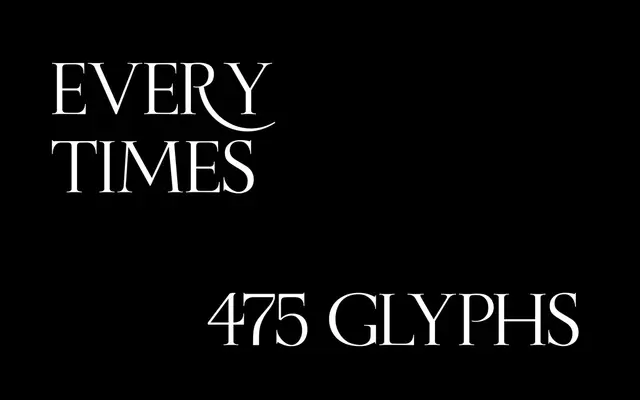
Every Times
A serif typeface from Fable with apparent roots in the Times tradition, designed for text setting.
Every Times appears to be a serif offering from Fable, drawing on the transitional serif lineage associated with Times. Beyond the name, the page provides minimal detail on weights, styles or intended use cases. Further information from the foundry would be needed to give a fuller account of its design intent and capabilities.
The name 'Every Times' suggests a Times-derived or transitional serif design; without further page detail, a transitional serif classification is the most reasonable inference from the naming convention.